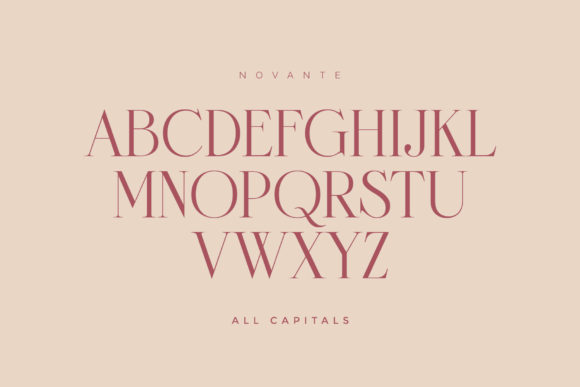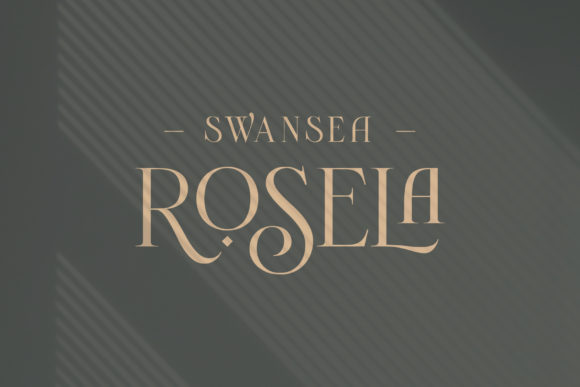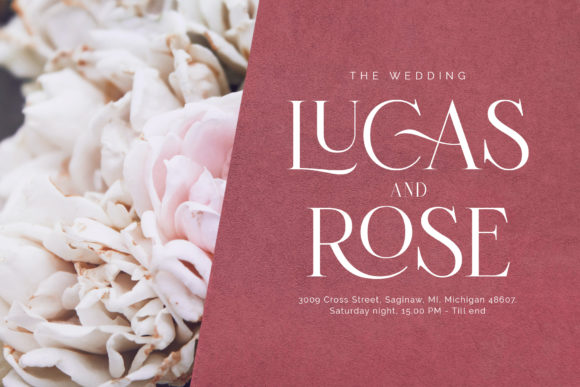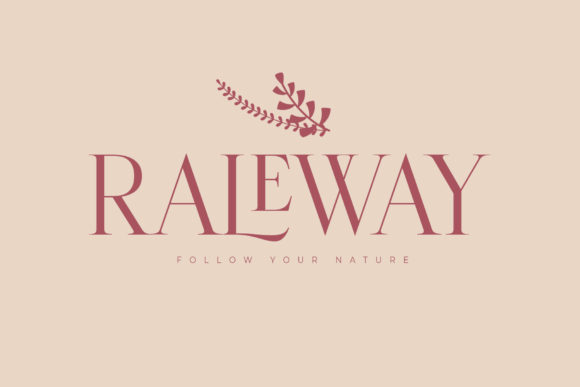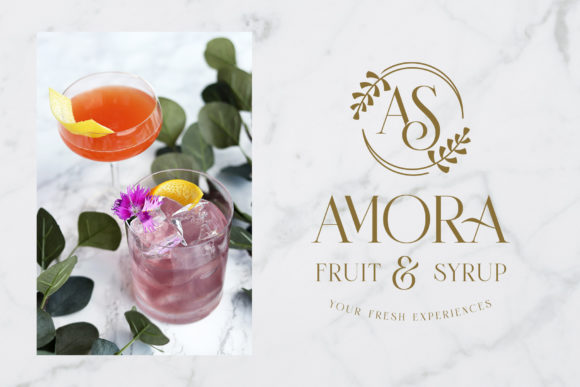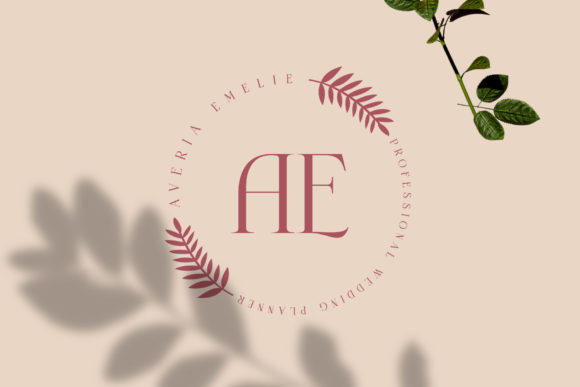
Introduction to Novante Font
As a designer, there’s nothing quite like the thrill of landing on the perfect font for a project. It’s the moment when all the pieces fall into place, and your creative vision starts to take shape. For me, that moment came when I stumbled upon the Novante Font – a stunning serif font that effortlessly elevates any design to new heights.
What sets Novante Font apart is its unique blend of elegance and sophistication, making it the perfect fit for logos, branding, social media, and even crafty DIY projects. With its high-quality design, this font is a valuable resource for designers looking to add a touch of sophistication to their creative projects.
Whether you’re working on a free download or a paid design project, Novante Font is sure to impress. Its versatility and sleek design make it an ideal choice for designers who demand only the best. In this article, we’ll dive deeper into the world of Novante Font and explore why it’s become a go-to design resource for creatives around the globe.
Key Features of Novante Font
- High-quality design resource with a transparent background, perfect for creative projects that require a modern and sleek aesthetic.
- Unique characteristics include a clean and minimalist design, with subtle nuances that add depth and interest to any project.
- Designed to be versatile and adaptable, Novante Font is perfect for use in a wide range of creative projects, from branding and advertising to editorial and educational materials.
Honest Review: Novante Font
I recently stumbled upon the Novante Font, and I must say, it’s been a game-changer for my design projects. As a designer, I’m always on the lookout for high-quality design resources, and this font definitely fits the bill.
One of the standout features of the Novante Font is its versatility. It’s perfect for a wide range of creative projects, from editorial designs to branding materials. The font’s modern and sleek design makes it a great choice for anyone looking to add a touch of sophistication to their work.
Here are some of the things that work well for the Novante Font:
- May not be suitable for projects that require a more traditional or classic look
- Not as extensive a character set as some other fonts
- May require some tweaking to get the desired look in certain design applications
Overall, I’m thoroughly impressed with the Novante Font. Its high quality, versatility, and free download make it a must-have for any designer’s toolkit. While it may have some limitations, I believe the benefits far outweigh the drawbacks.
Novante Font
Tips for Getting the Most Out of Novante Font
Use Novante Font with a transparent background to create a high-quality design. This font is ideal for creative projects that require a unique and stylish touch.
Novante Font is commonly used in logos, business cards, and other marketing materials. It is also used in creative projects such as infographics, brochures, and flyers.